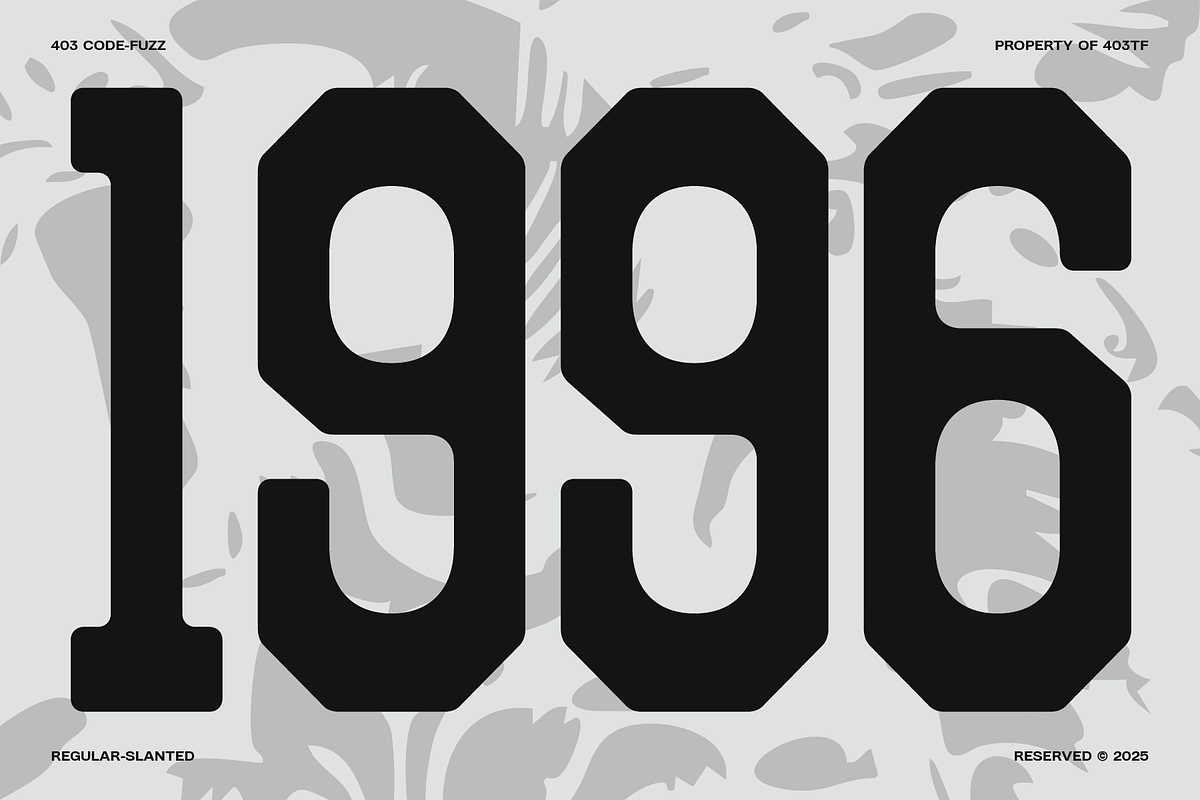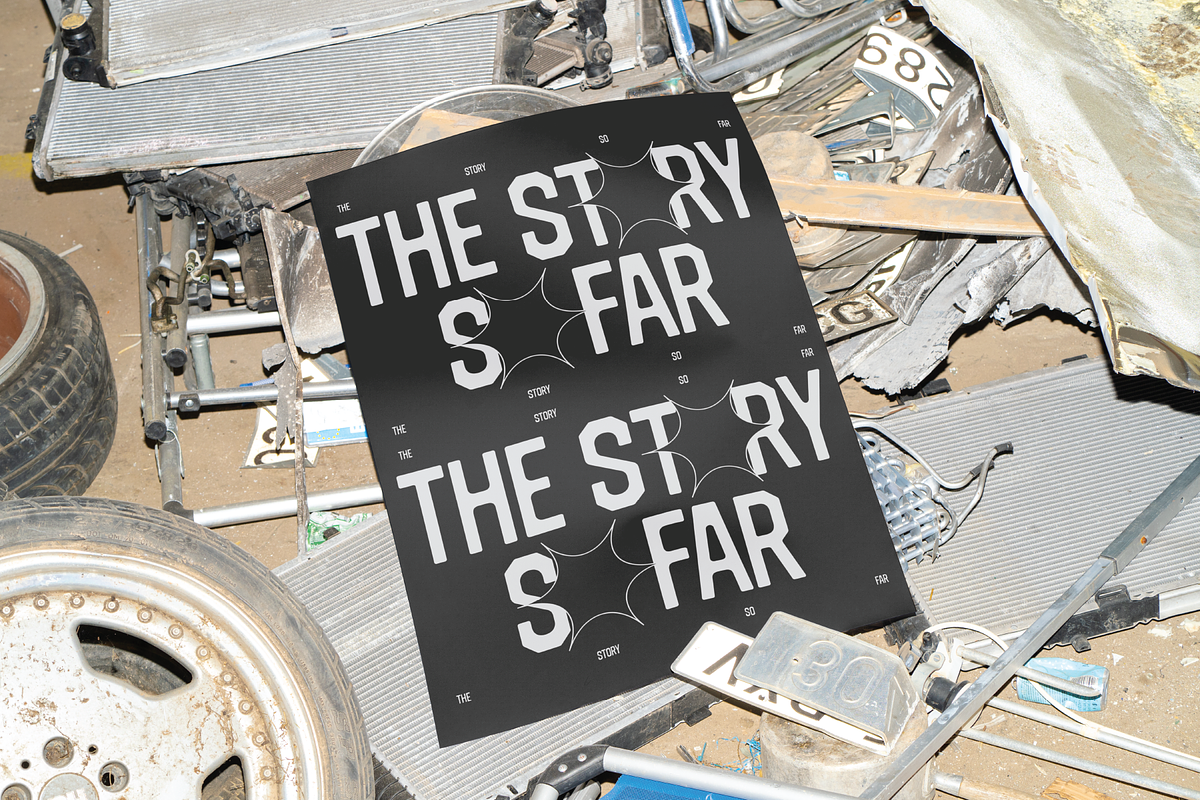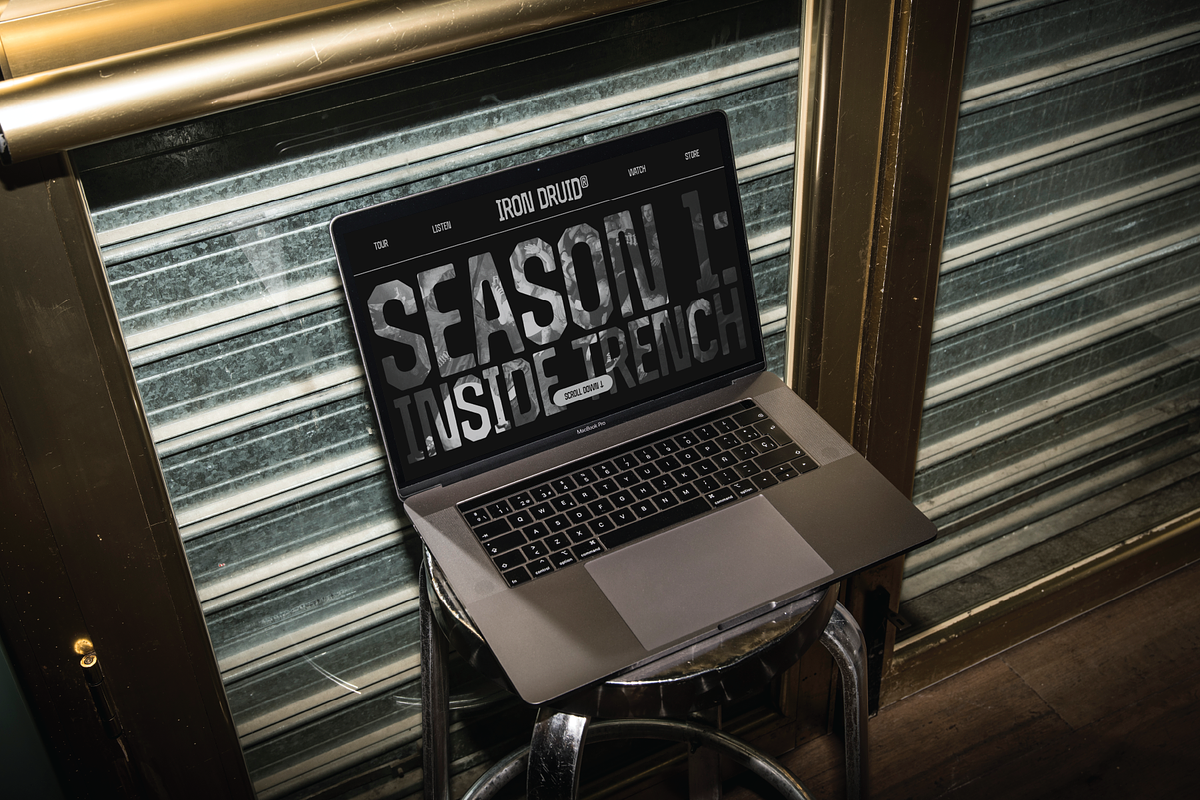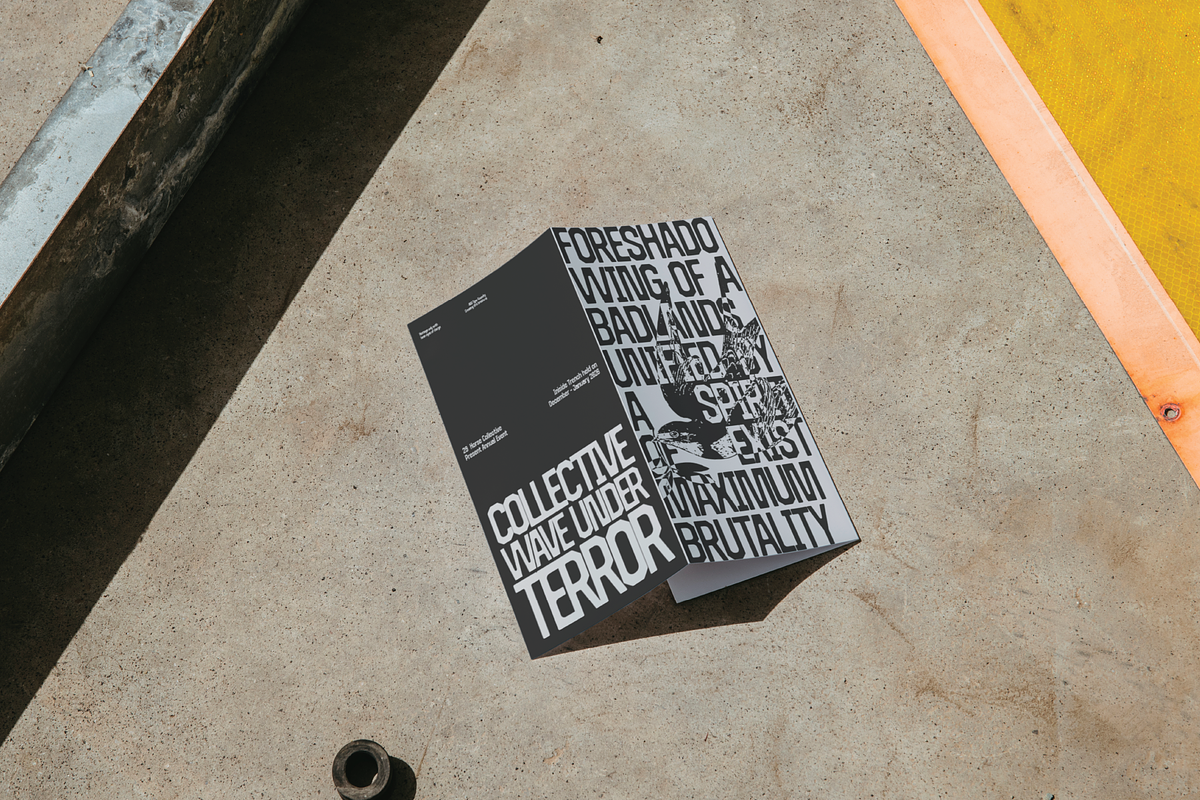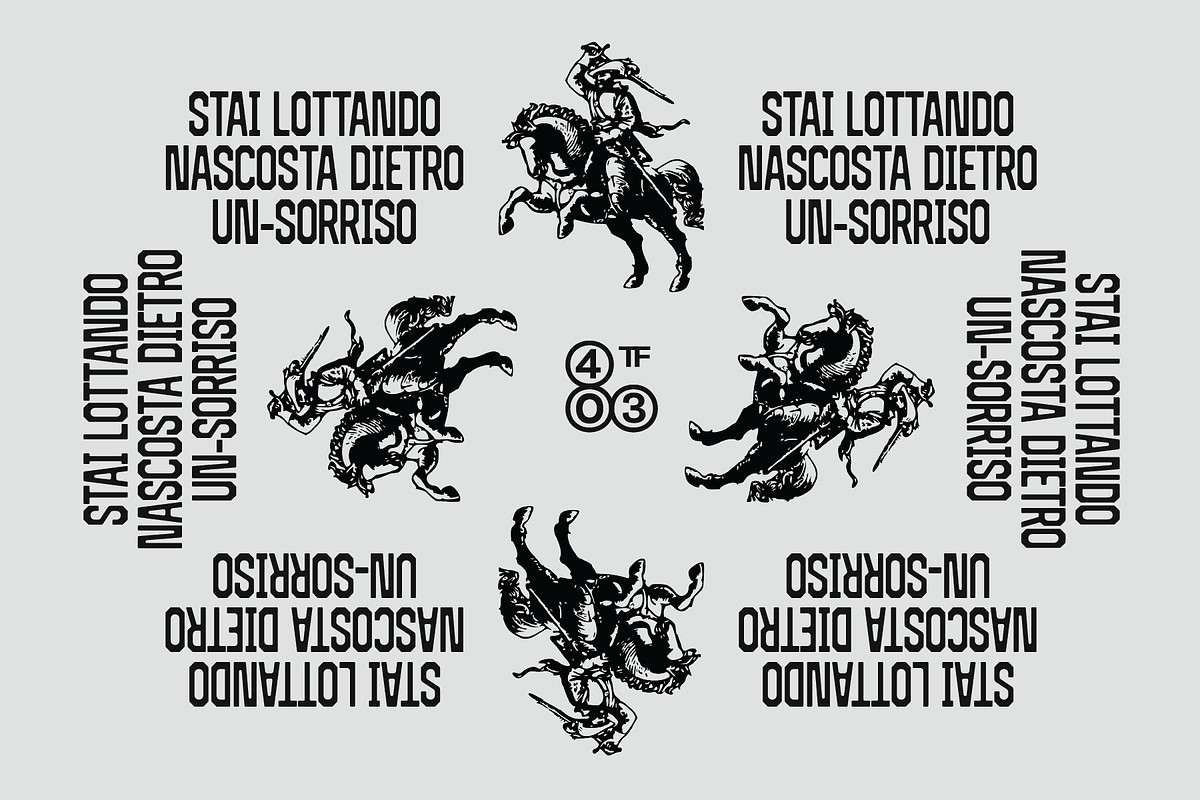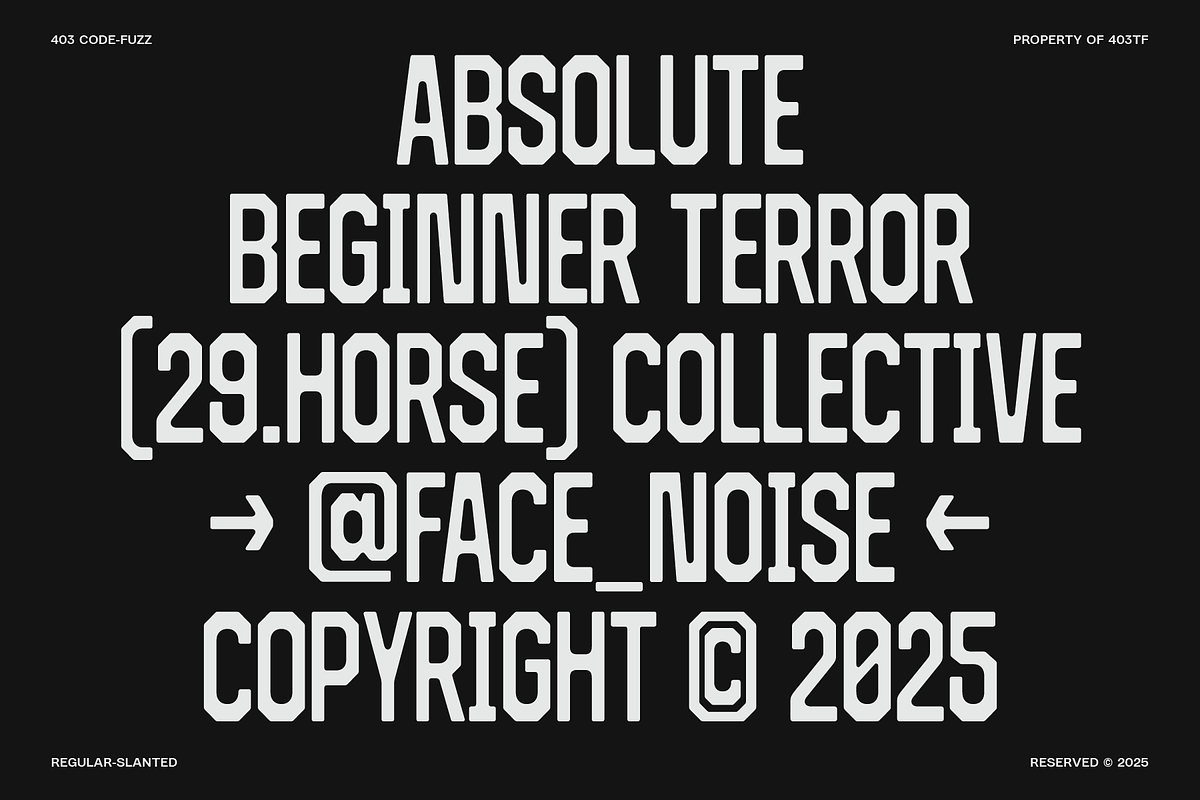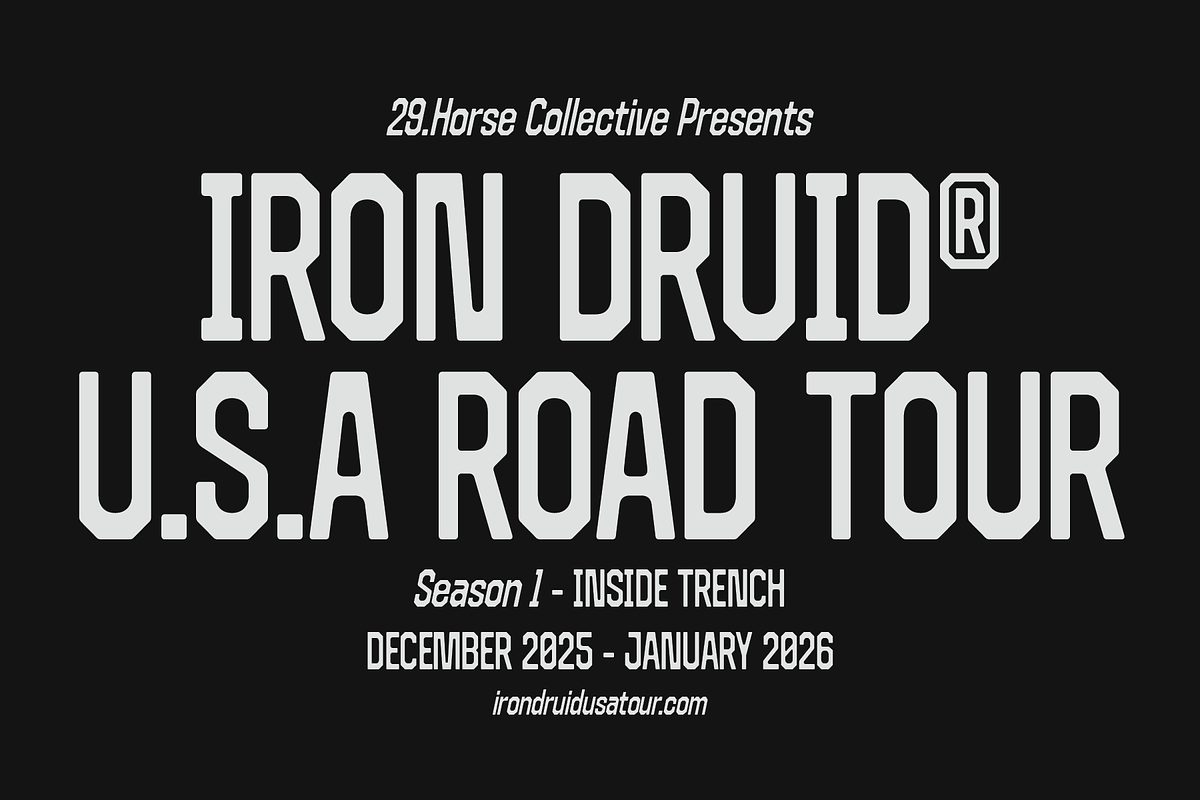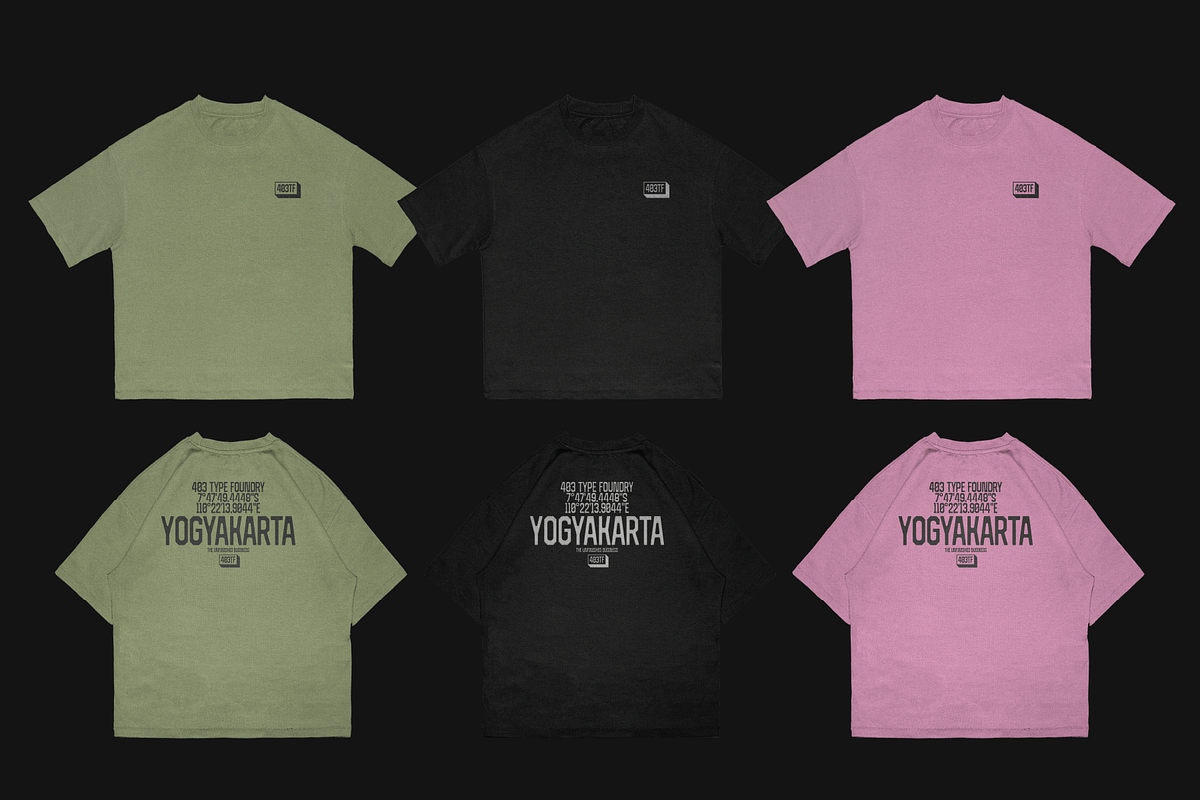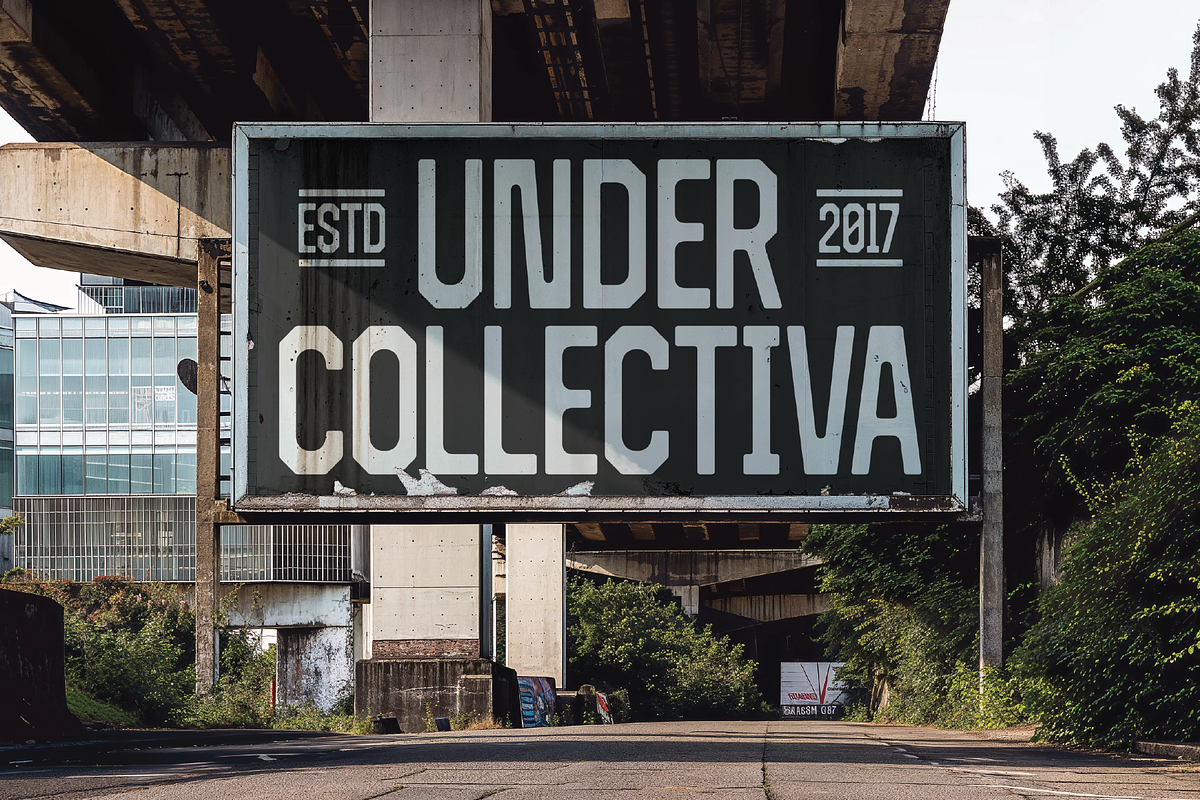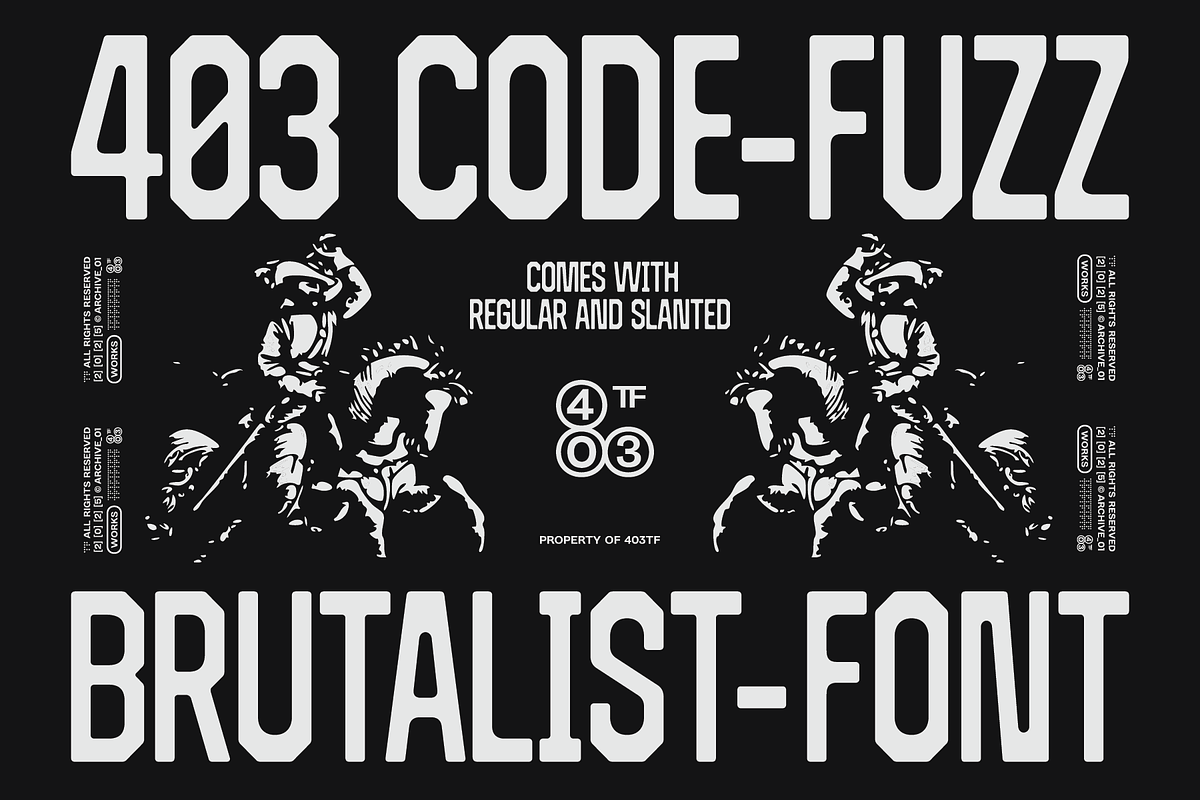
403 Code Fuzz
403 Code Fuzz is a typographic weapon built for the modern industrialist. It occupies the aggressive middle ground between retro-futuristic data terminals and heavy-duty shipping logistics. With its jagged, chamfered edges and unyielding block structure, this typeface doesn’t just communicate; it stamps your message with the authority of a military stencil. It is designed for creators who need a font that feels engineered rather than drawn. It is a visual system that thrives in the grit of the streets and the glow of the screen.
The design philosophy of 403 Code Fuzz is rooted in "calculated friction." It features a strict octagonal construction reminiscent of vintage sports jerseys and warning signage, but updated with a cyber-brutalist twist. The previews showcase its versatility: it can look like a sleek, high-tech interface (as seen on the laptop display) or a distressed, grungy texture (like the "Iron Druid" tour poster). The Regular cut stands firm like a concrete pillar, while the Slanted version introduces a fast, aerodynamic aggression, perfect for creating a sense of velocity.
Explicitly tailored for streetwear brands, electronic music culture, and utilitarian design, 403 Code Fuzz thrives in high-impact environments. It is the ideal choice for everything from Gorpcore apparel and techno rave flyers to large-scale industrial signage and brutalist editorial layouts.
The previews reveal a robust engine under the hood. 403 Code Fuzz is packed with OpenType features designed for professional typesetting:
- Dual Styles: Includes Regular & Slanted for instant hierarchy and movement.
- Comprehensive Character Set: 707 Glyphs supporting 332 languages.
- Advanced OpenType Features: Includes Ligatures, Case-Sensitive forms, and Stylistic Sets.
- Utilitarian Add-ons: Features a dedicated set of Arrows, Fractions, and Symbols (icons) for UI/UX and wayfinding design.
- Variable spacing: Optimized for tight, aggressive kerning.